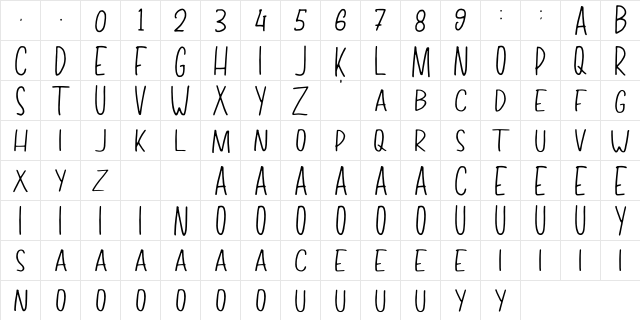
Tiffany Sans Regular
| Foundry | Ardyanatypes Studio |
| Designer | Ardyanatypes |
Design Context for Tiffany Sans Typeface
Tiffany Sans offers clean, dependable letterforms without strong stylistic allegiance, making it a practical choice for designers who need flexibility.